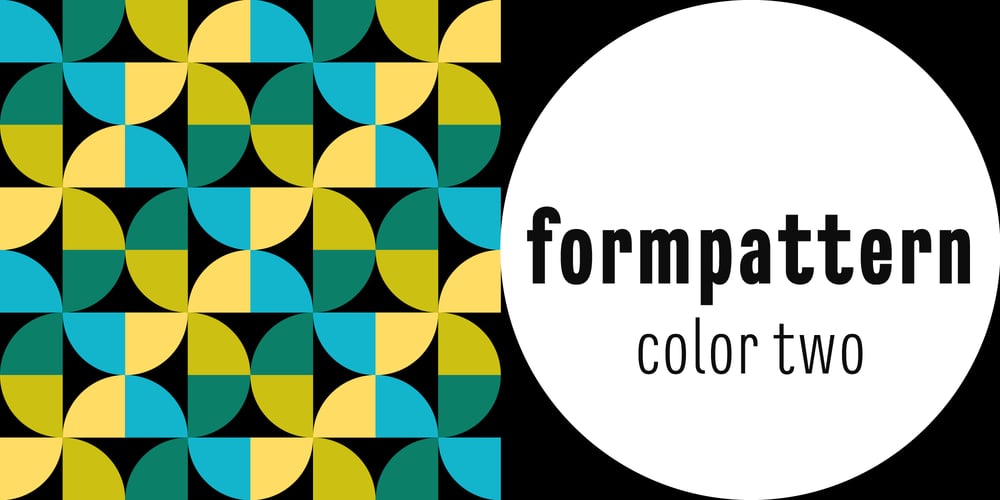
FormPattern Color Two Font Family was designed by Donald Tarallo, Alex Tarallo and published by Tarallo Design. FormPattern Color Two contains 8 styles and family package options. FormPattern Color Two is a dingbat font for creating borders, frames, lines, and patterns. It is made up of a versatile set of interconnectable shapes that can flow together to make lines, borders, and patterns. Try different letter spacing to connect the forms into a continuous pattern or to space them apart. Explore leading (line spacing) to create large areas of pattern. Work with layering and opacity to discover the color-mixing potential of this font. Web designers can use FormPattern to make unique horizontal rules. How does FormPattern work? Install is as a regular font and as you type you will get forms instead of letters. Most design software, such as Illustrator, InDesign, and Photoshop provide a glyphs palette where you can choose the precise form you want. Color fonts are supported by Photoshop 2017, Illustrator 2018, and QuarkXPress 2018 (and later versions). A solid uncolored font comes with every purchase and can be used in applications that do not support color fonts. It will appear black and can be colored in the usual ways. FormPattern Color Two is compatible with all other FormPattern fonts from Tarallo Design.